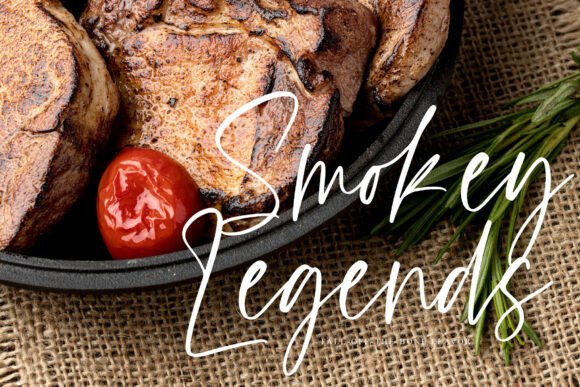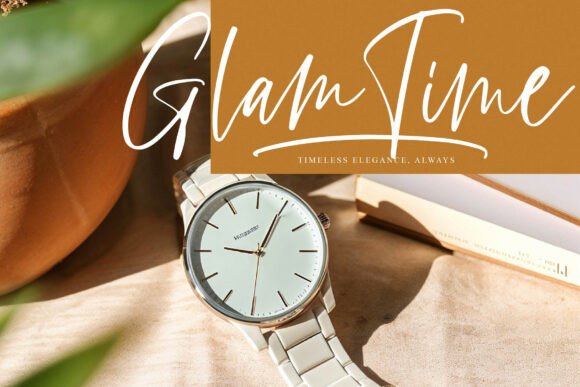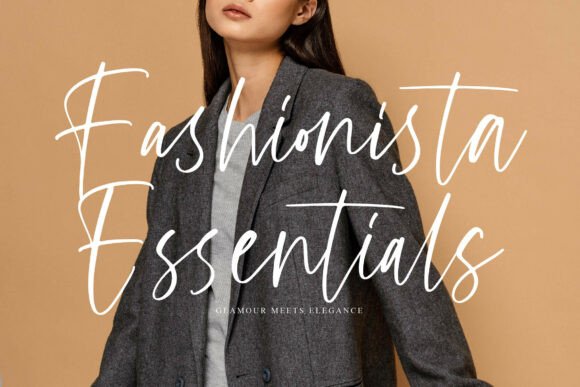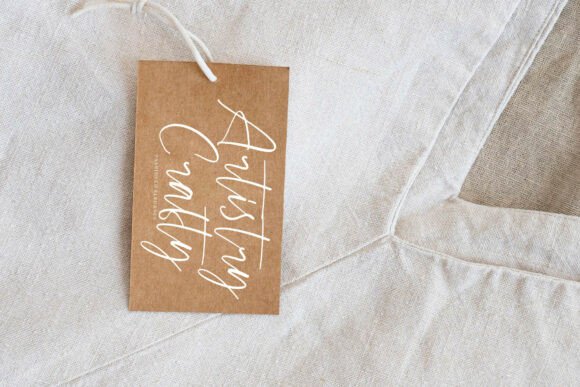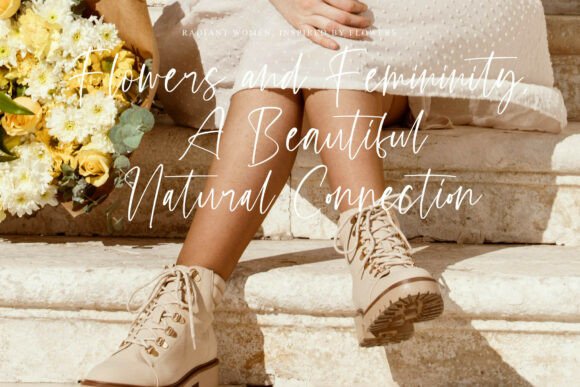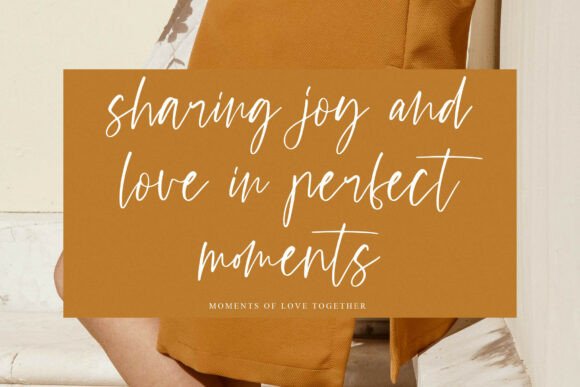
Introduction to Romantic Essentials Font
Romantic Essentials is a flowing modern script that brings timeless beauty to your creative work.
With graceful curves and a delicate look, itโs a go-to for wedding invites, stylish quotes, packaging, and upscale branding .
Key Features of Romantic Essentials Font